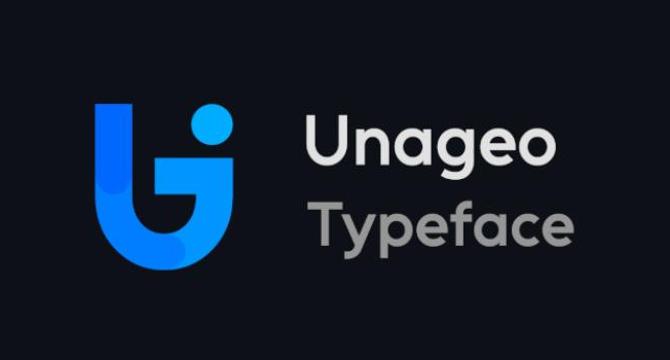
The Unageo font is a modern geometric sans-serif font that offers a clean, minimal feel with a professional tone.
It draws inspiration from classic geometric sans-serifs like Futura and Avenir but introduces a fresh balance between sharp geometry and optical friendliness.
Unageo is versatile, suitable for designing logos, user interfaces, or editorial layouts, giving a futuristic edge with subtle humanist touches.